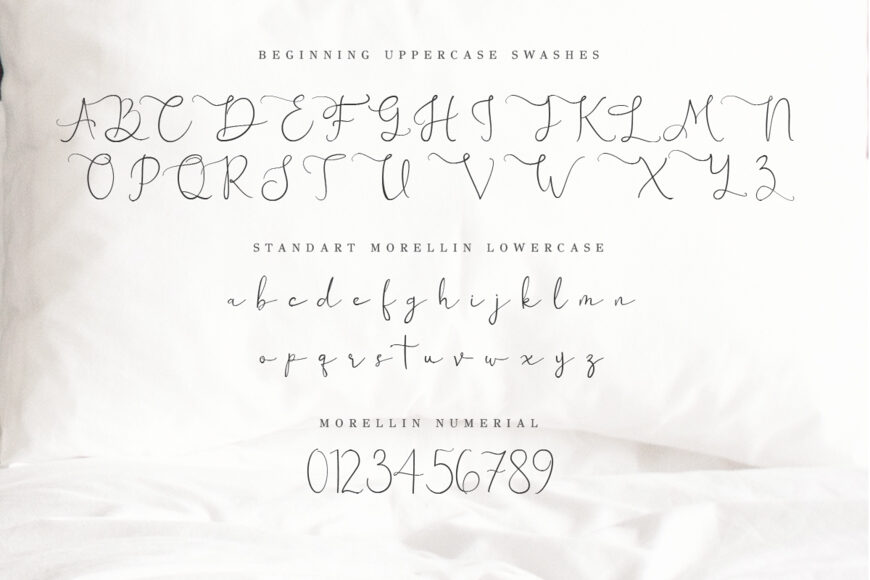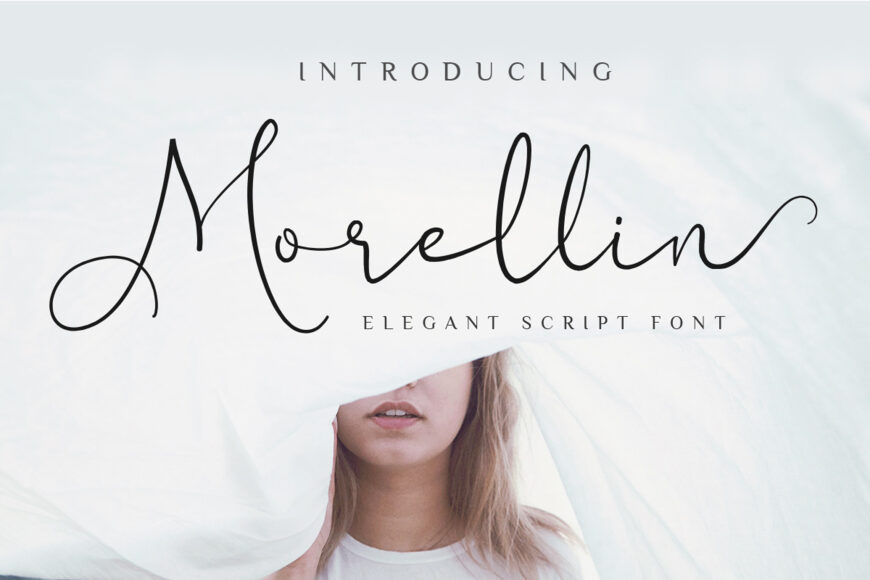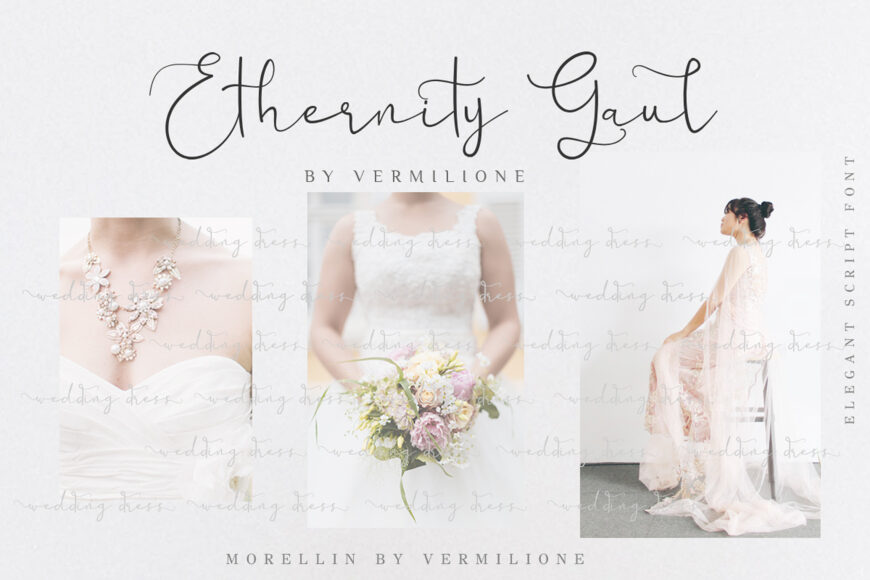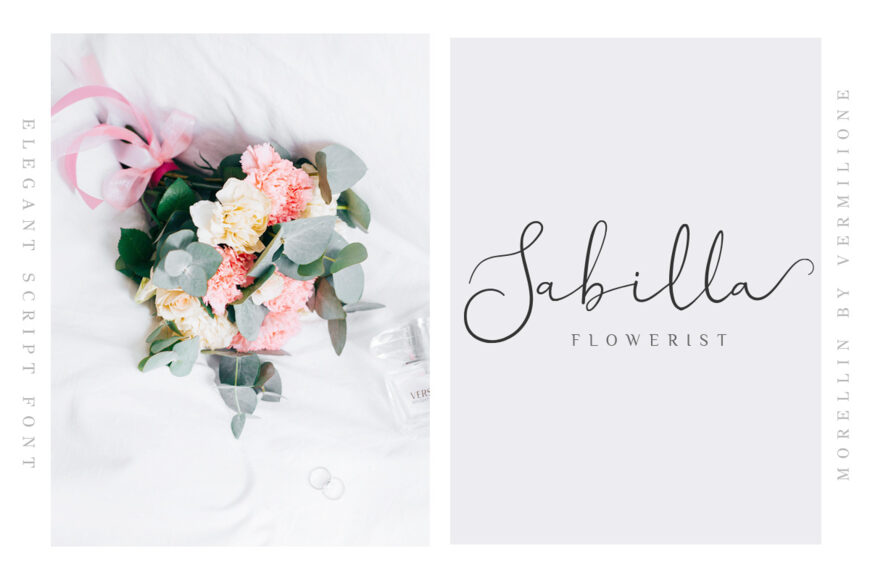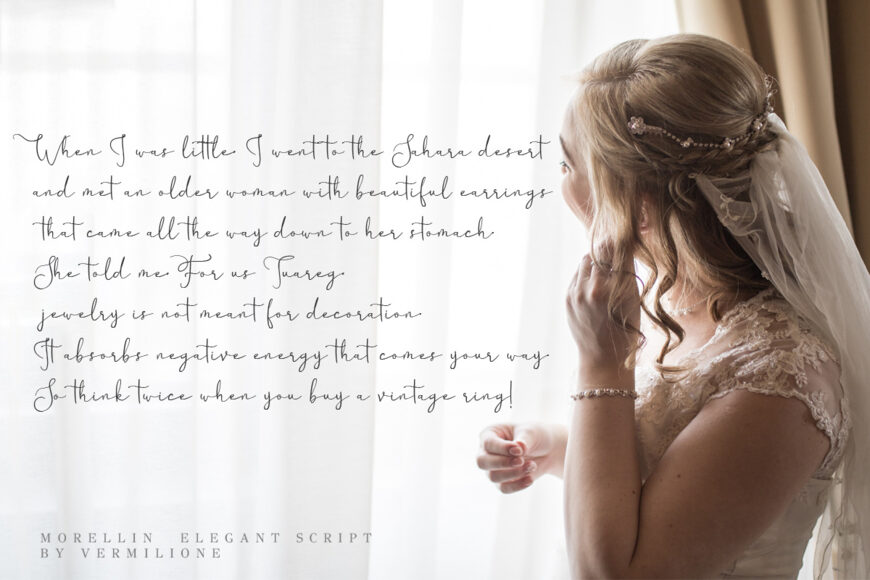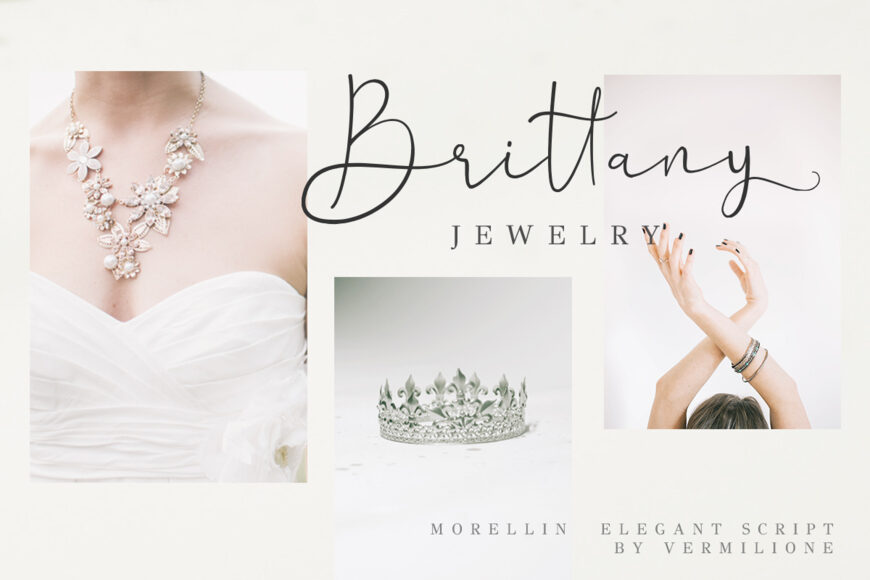
Morellin Font
Morellin blends relaxed handwritten character with refined elegance and a contemporary touch. Its sophisticated style is sure to captivate. Perfect for weddings, invitations, headlines, romantic themes, fashion materials, and much more.